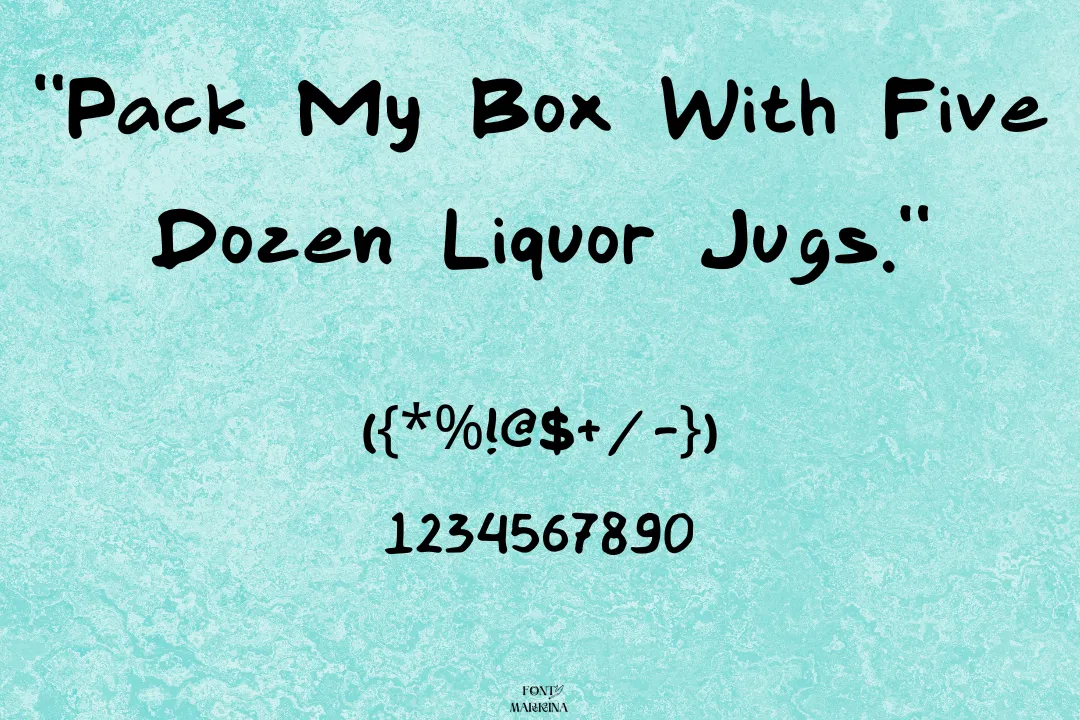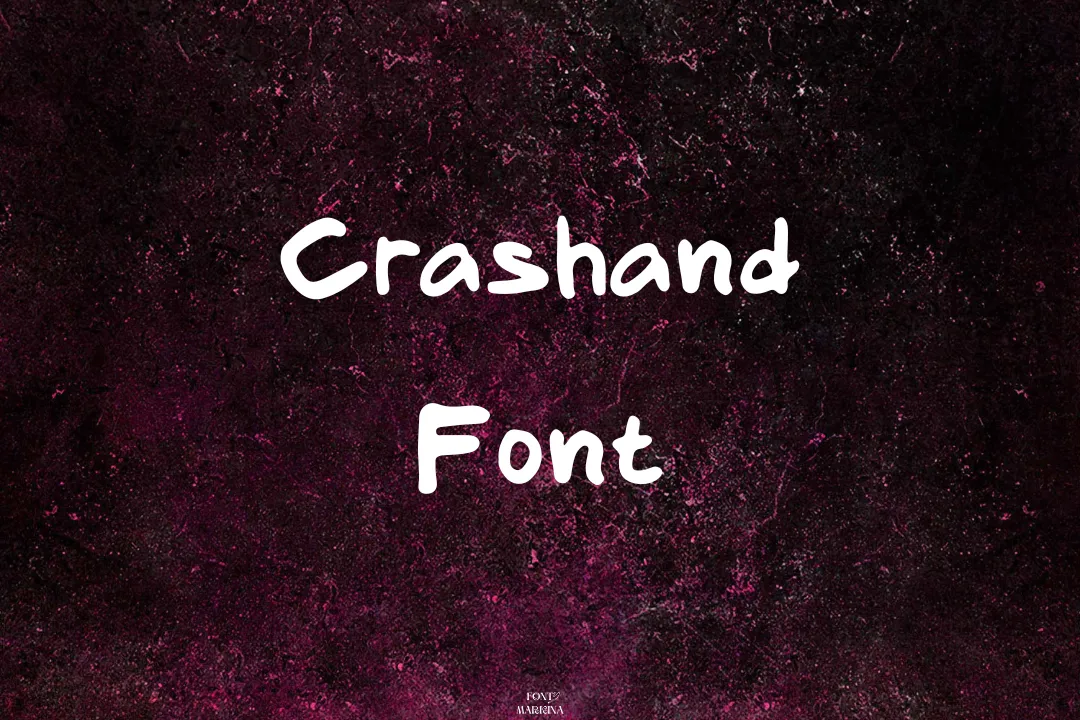
Crashand Font is a modern display script font organized by Bangun Studio, a type foundry based in Indonesia. This font is characterized by its bold, geometric shapes and clean lines, making it ideal for use in a combination of design projects.
Crashand typeface features uppercase letters, numerals, and basic punctuation, as well as some special characters, such as a stylized ampersand and exclamation point. This typography reaches in two weights, Regular and Bold, which can be used together to create visual contrast and hierarchy in your designs.
One of the unique features of Crashand texture is its use of alternate characters, which can be accessed through OpenType features in software such as Adobe Illustrator or Photoshop. These alternate characters include alternate letterforms and swashes, giving you even more creative flexibility when working with the font. By using its text generator tool, you can easily convert your simple text to colorful graphics.
Who Can Use Crashand Font
The bold and modern look of Crashand family can make a strong impression in logos and branding materials. The clean lines and geometric shapes of this texture make it a great choice for headlines and titles in magazines, posters, and other print materials. Here by making a proper pairing of this typography with Bickham Font you can achieve more wonderful results.
The bold and eye-catching nature of this texture can make it an effective choice for packaging design, particularly in industries such as food and beverage. The modern and trendy look of this font can be used to create visually appealing graphics for social media platforms such as Instagram, Twitter, and Facebook.
The clean and easy-to-read nature of Crashand family makes it a great choice for website headings, banners, and other design elements. The bold and attention-grabbing nature of this font can make it an effective choice for product design, particularly for products with a modern and edgy aesthetic.
Crashand Font View
| Designer | Bangun Studio |
| Type | Script |
What is the category of Crashand Font?
This typeface is categorized as a script family of fonts.